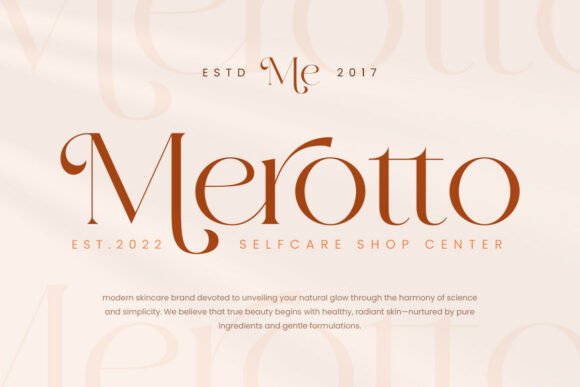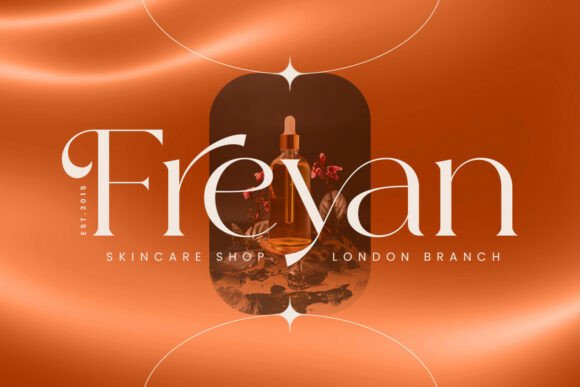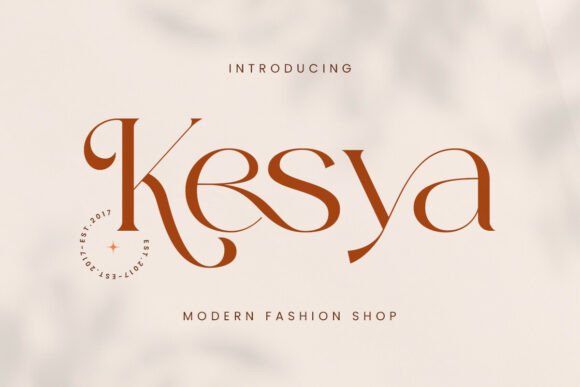
Introduction to Lorestta Font
Lorestta is a sophisticated serif font that captures the essence of timeless elegance and soft femininity.
With refined curves and graceful letterforms, every character exudes confidence and charm, making it perfect for designs that seek both luxury and warmth This font is designed to bring high-end beauty to your branding, ideal for fashion logos, wedding stationery, editorial layouts, and elegant packaging.
Key Features of Lorestta Font
Why Choose Lorestta Font?